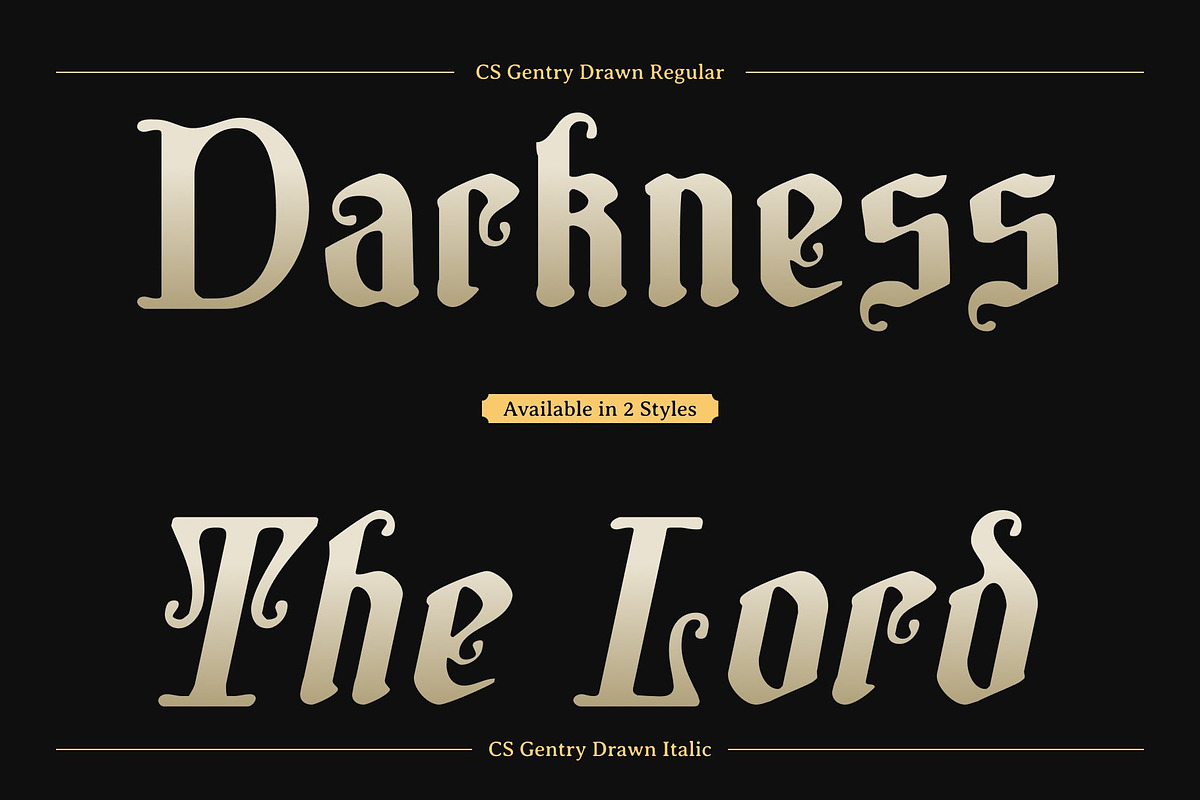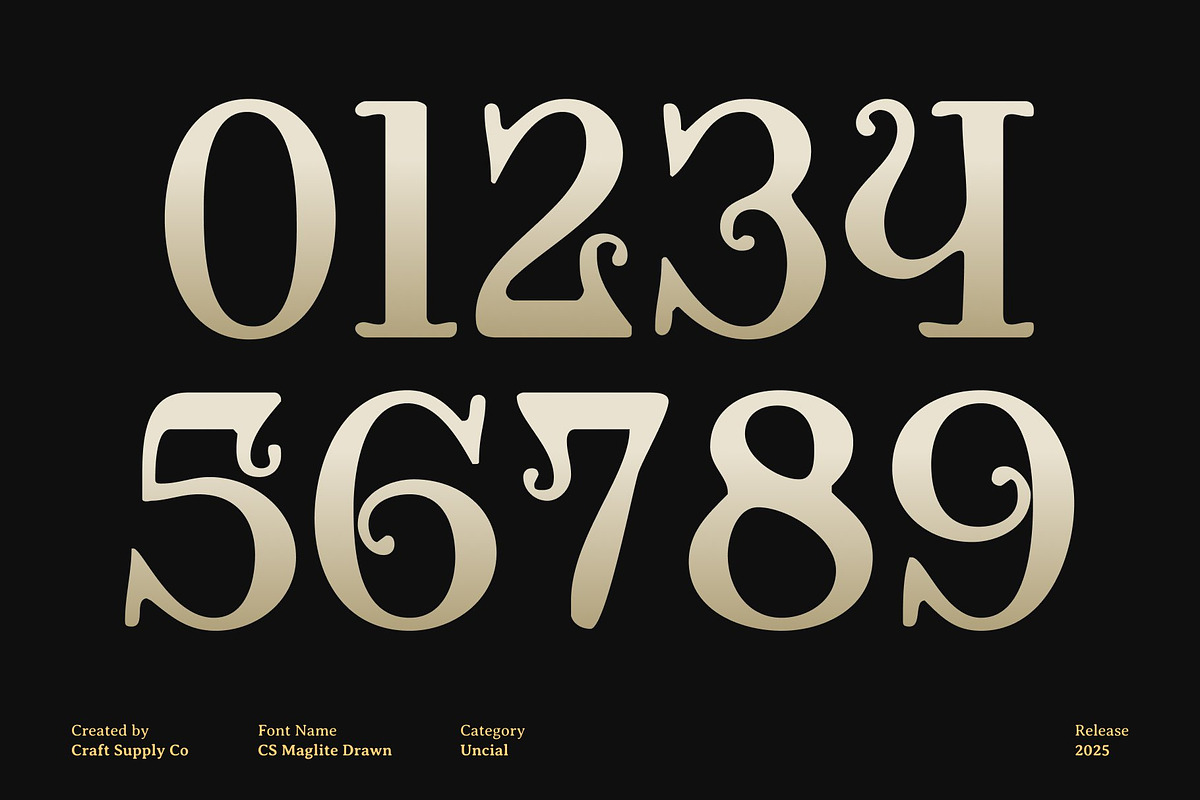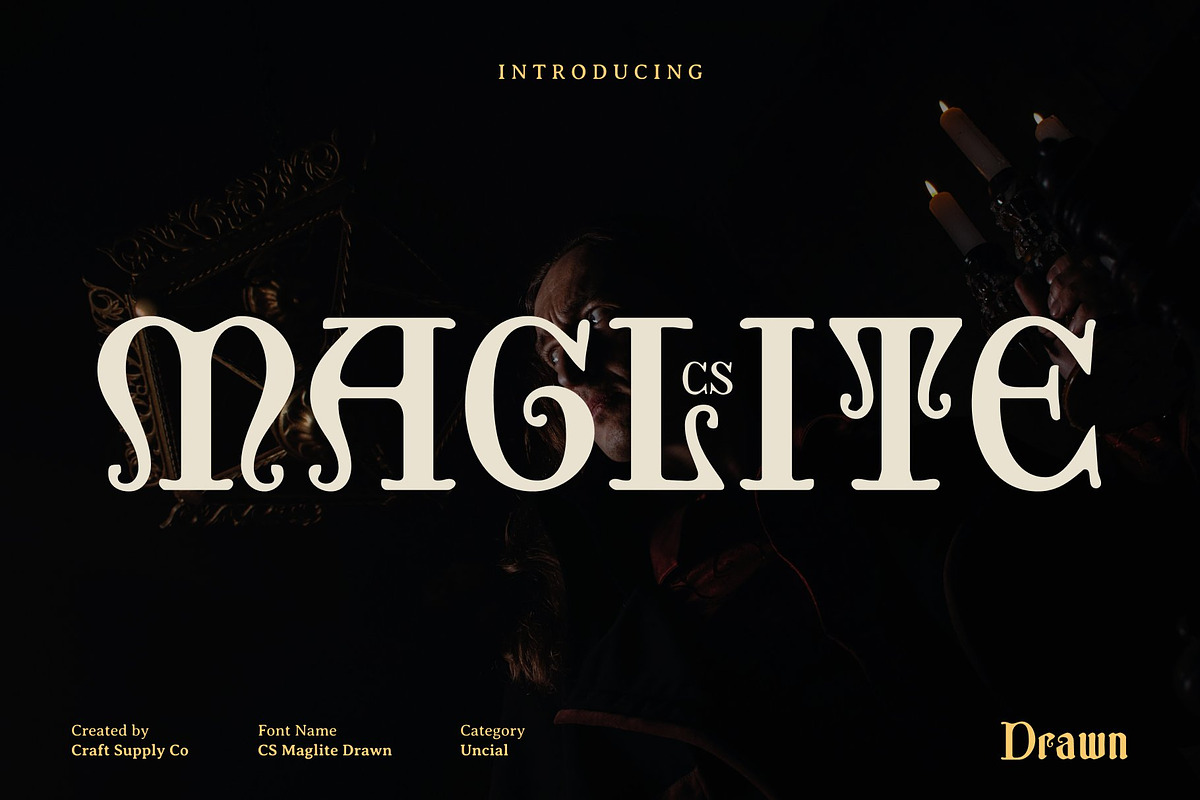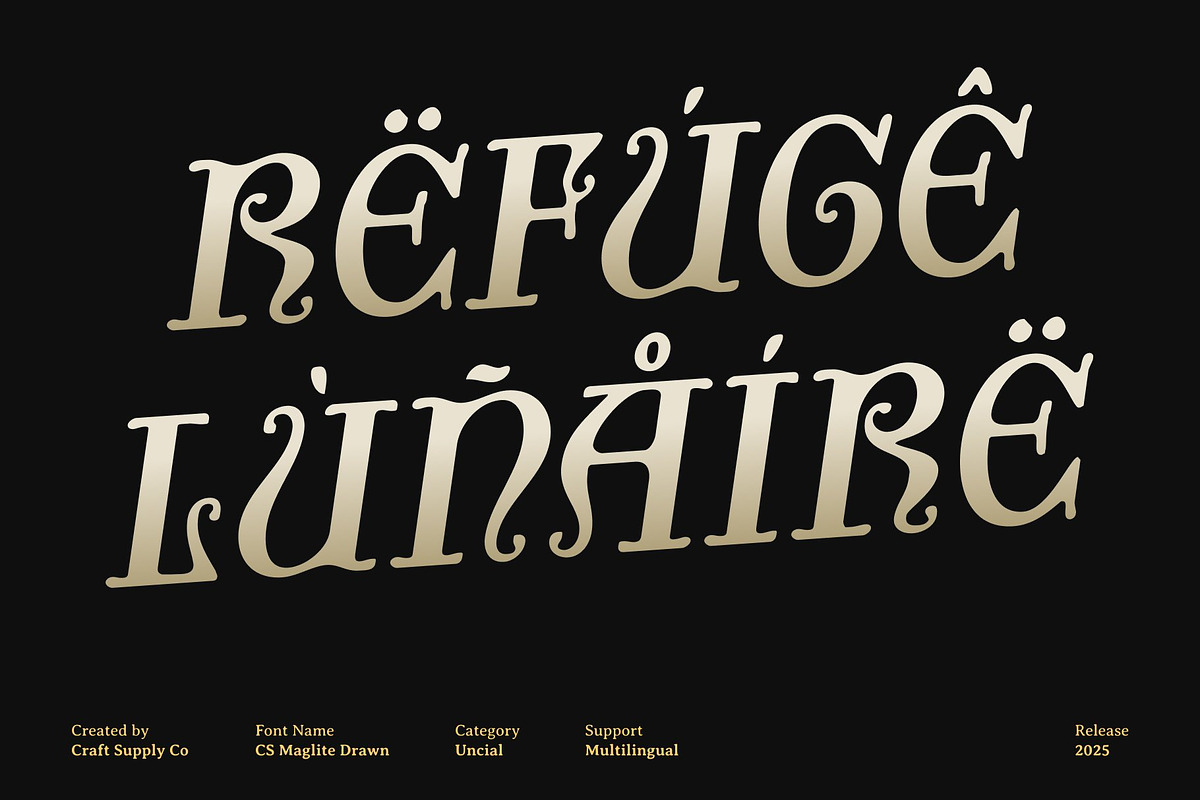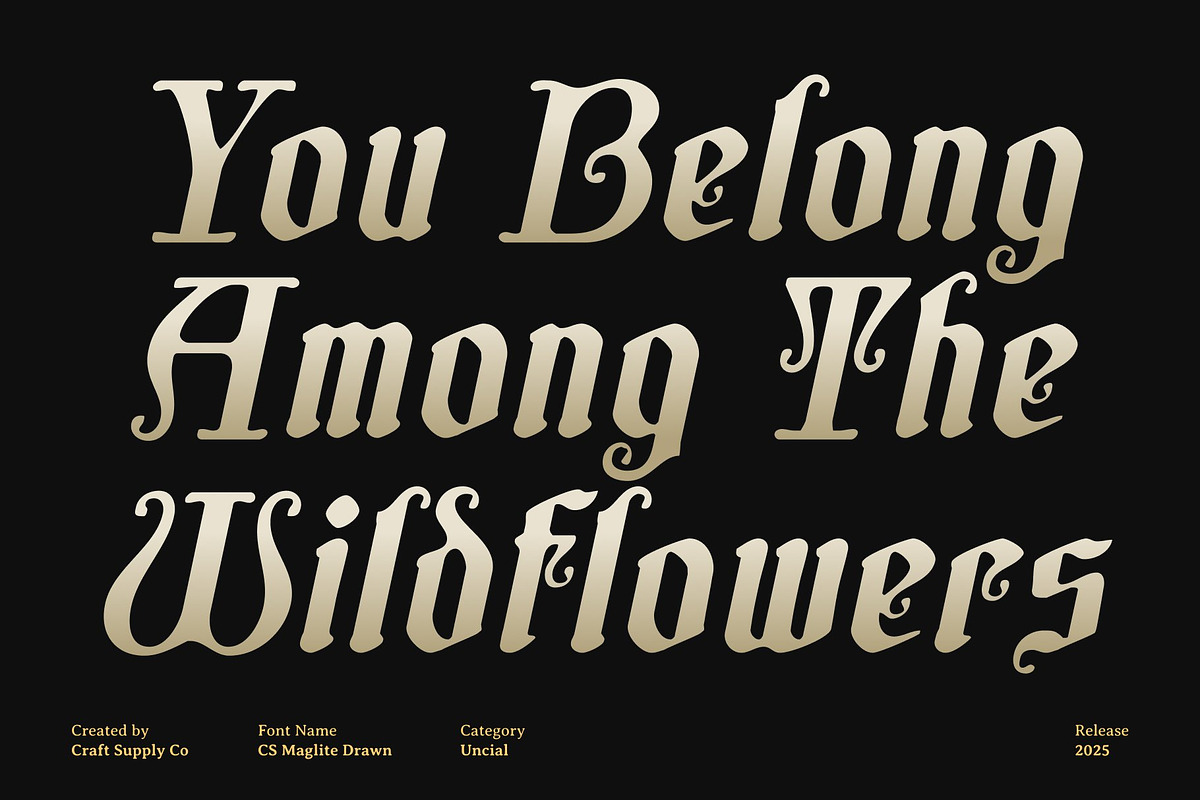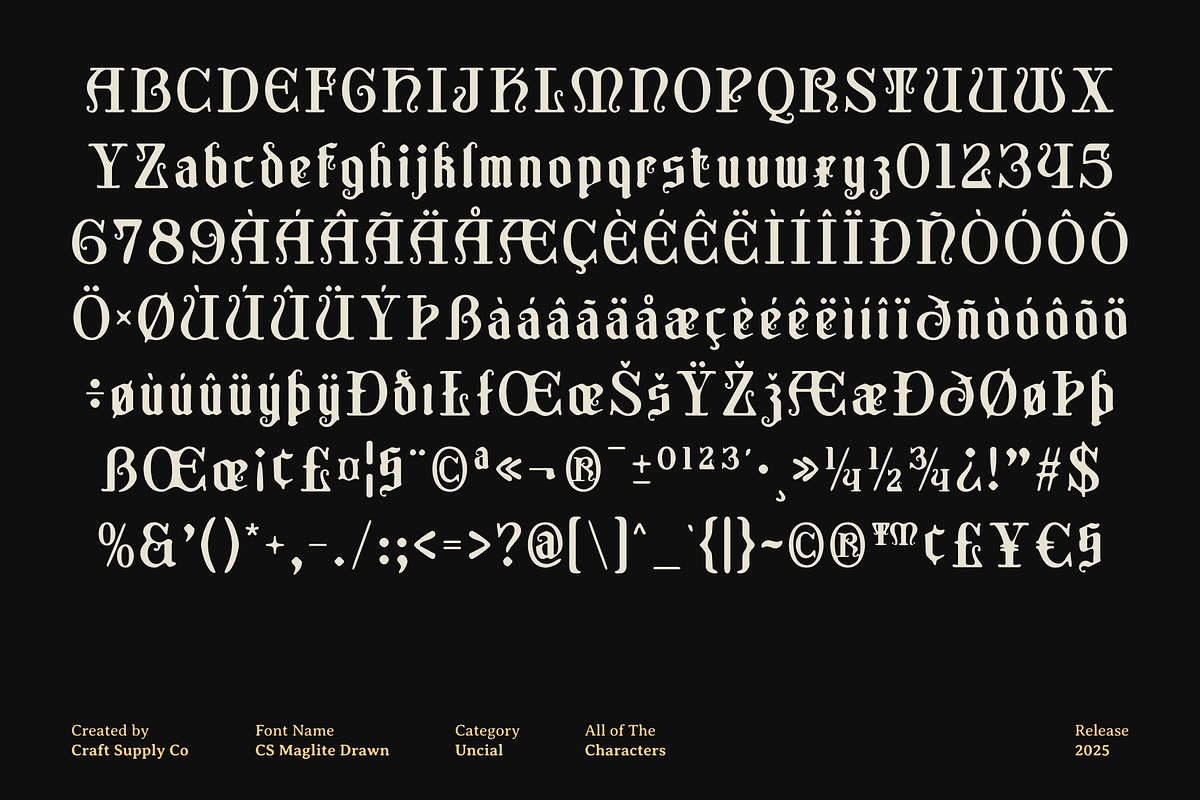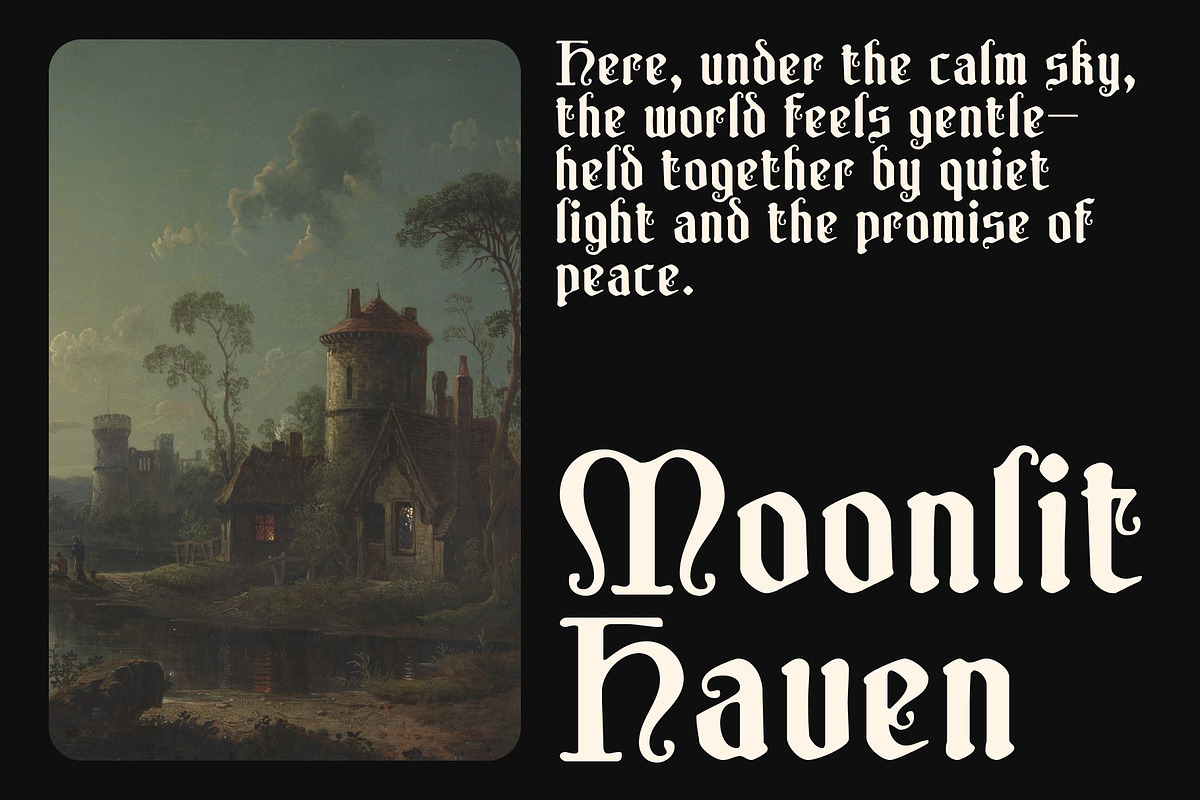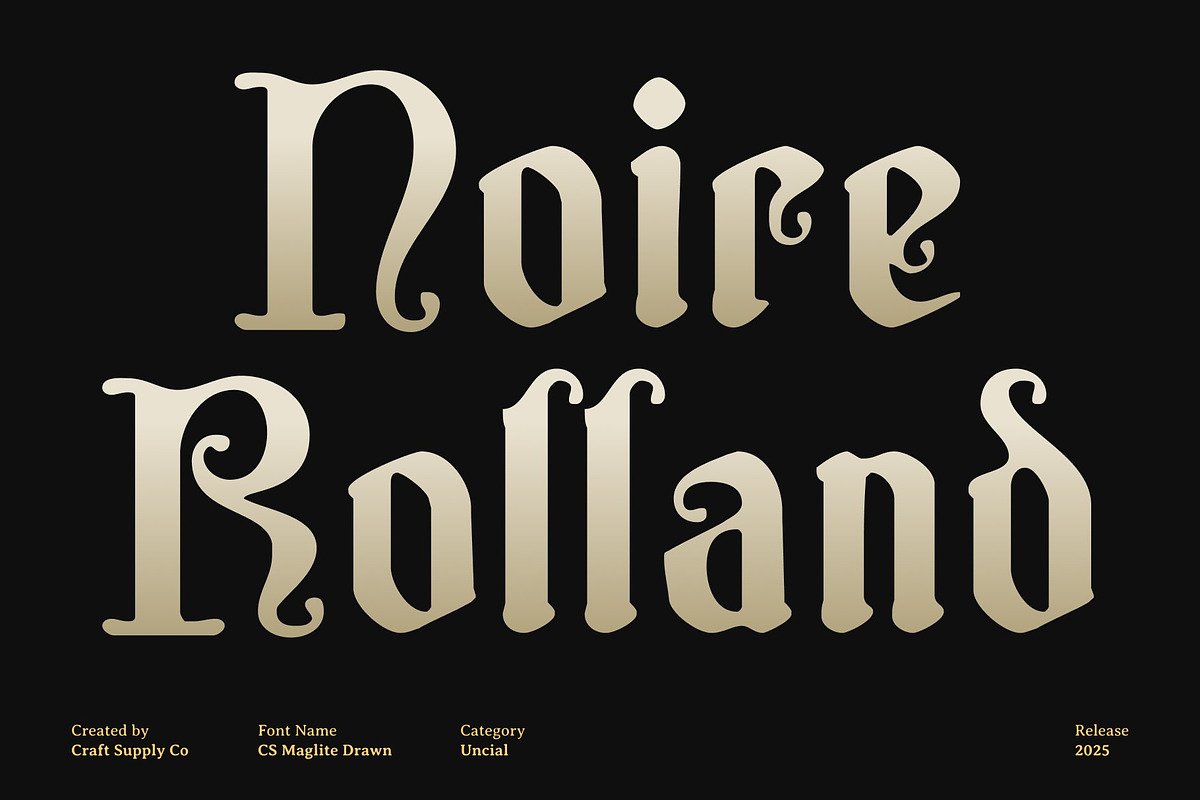
CS Maglite Drawn
CS Maglite Drawn – Gothic Uncial Display Font with Artistic Hand-Drawn Texture
Bold Gothic Uncial Style with Decorative Elegance This is a striking display font inspired by the bold elegance of Gothic uncial lettering. Its sharp, decorative lines echo traditional medieval calligraphy, giving each character an air of mystery, strength, and timeless craftsmanship. This classic structure makes every word feel monumental, dramatic, and visually compelling.
Hand-Drawn Texture for Artistic Expression Enhanced with a unique drawn effect, this font introduces a handmade texture that breathes life into every letter. The rough, organic strokes add personality and depth, giving the font a raw artistic quality. This texture creates an expressive, hand-rendered look that stands out in modern digital designs while maintaining a touch of old-world charm.
Dramatic Presence with Lively Visual Energy The interplay between Gothic precision and hand-drawn irregularity produces a lively, dynamic feel. Each glyph carries dramatic movement, as if sketched with intention and emotion. This blend of structured detail and expressive texture makes the font ideal for designs that require bold character and visual storytelling.
Perfect for Posters, Branding, Book Titles, and More This font excels in projects that demand a classic yet artistic atmosphere. Whether you’re designing posters, branding elements, book titles, album covers, or creative layouts, this font adds instant depth and intrigue.
- CS Maglite Drawn Regular
- CS Maglite Drawn Italic